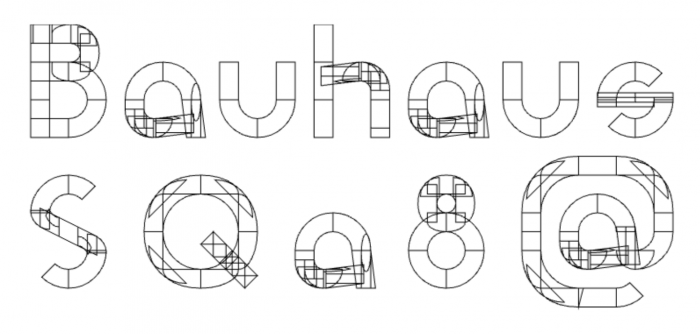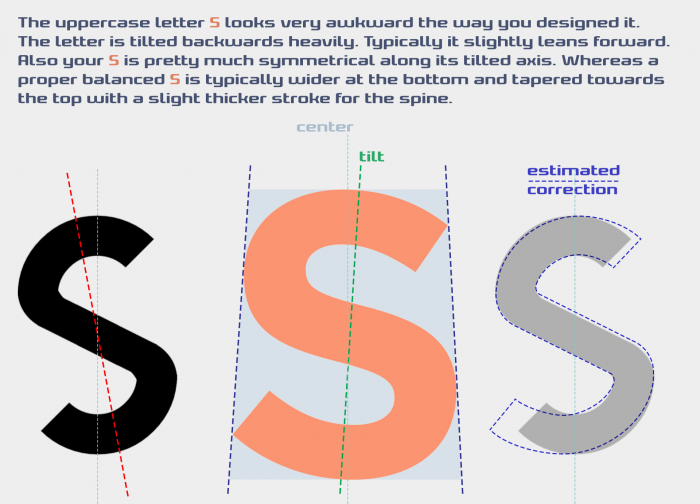
Kerning: 208 pairs
Uppercase B:
The mid-section intersect is slightly too bulky in the top bowl where both strokes meet. This needs a slight optical refinement to reduce the stroke weight a tiny bit.
Uppercase ODC (as well as all other identical 1,5 round letter parts, like for example in 6 and 9):
The outside curvature of these contours are somewhat wobbly and could use some refinement.
Uppercase M:
Diagonal-to-round brick transitions could also be refined a little bit further in my opinion
Uppercase N:
A similar "diagonal-to-round brick transition" issue here, but even worse than M. The Quarter-Circle brick used to make the inner-transition was squeezed into more of an elliptical shape. Whereas it should've been left more circular shaped, to better mimic the outer-transitions that go into the verticals. Also I think the (diagonal) stroke is a tad bit underweight.
Uppercase S and $:
The uppercase letter S looks very awkward the way you designed it.
The letter tilts backward like the Tower of Pisa. Typically it should ever so slightly lean forward instead.
Your S is pretty much symmetrical along its tilted axis, whereas a proper balanced S usually is slight wider in the bottom and somewhat tapered towards the top. With a slight thicker stroke for the spine.
Lowercase a:
The transition from the top right Half-Arc brick into the diagonal has a slight bulge that makes it look fairly disrupted. I'm sure some additional nudging or another modified / resized round brick could fix this.
Lowercase q:
The same issue as with lowercase letter a, but here the bulge is located in the descender part of the stem.
Lowercase s:
Two corners of the horizontal mid-section brick(s) overshoot the Half-Arc brick's outer contour, creating a jagged disruption.
2:
The concave portion of the top right curve isn't very accurately curved nor smooth.
6 and 9:
Both letters have the same exact little issue. Which is the thick joints between stem and bowl where both strokes intersect. These need a slight optical refinement to reduce the stroke weight a tiny bit.
Comma:
The diagonal-to-round brick transition has a slight interruption.
Asterisk:
The vertical stroke is somewhat thin in comparison. It should be roughly the same weight as the other strokes.
At sign:
Located at the exact same spot as the bulge in the default lowercase letter a's top right section there is a flawed brick alignment.
how was the zero made?
the Ø and Q diagonal strokes look the same, I love this consistency with different letters